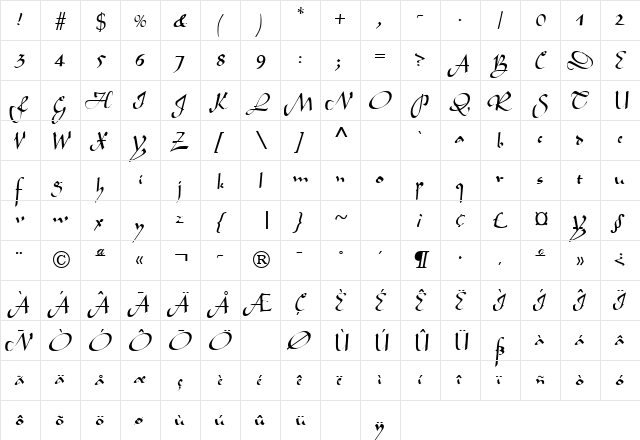
Gelfling SF Regular
Design Context for Gelfling SF Typeface
Gelfling SF is a composed and adaptable typeface that performs quietly and consistently across a wide range of design contexts.